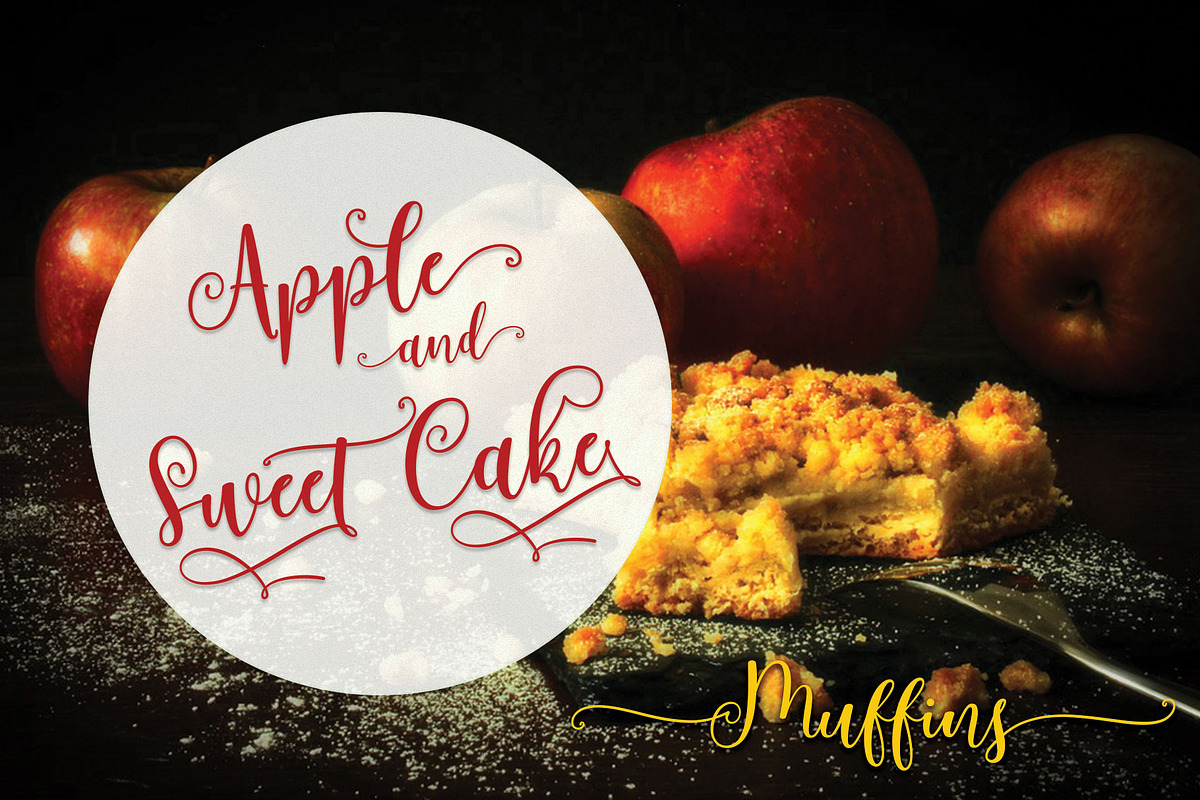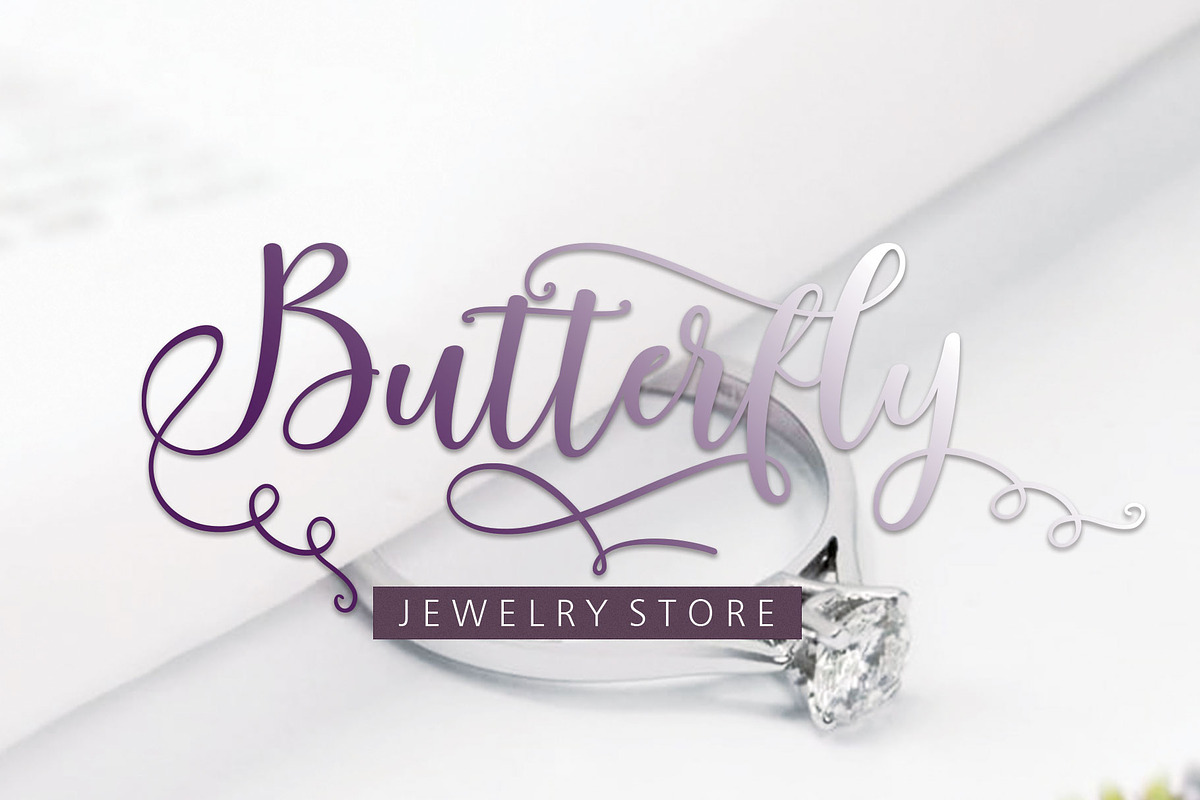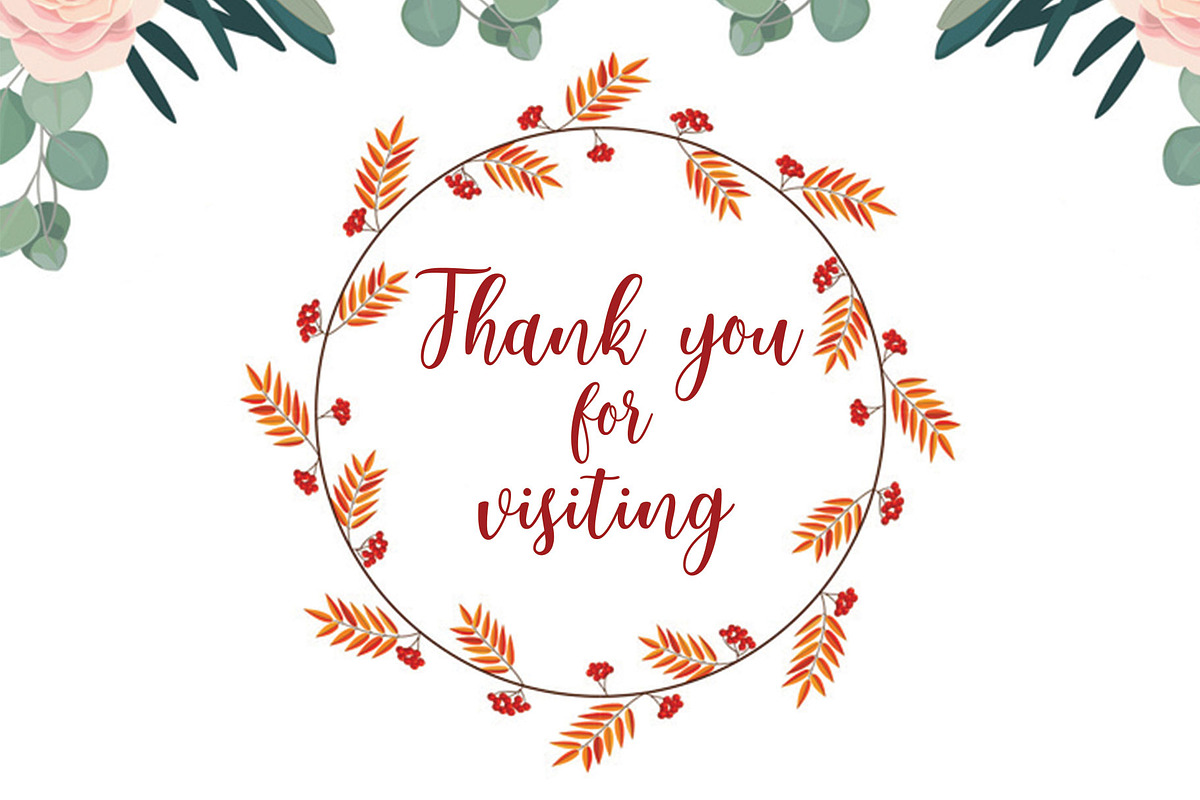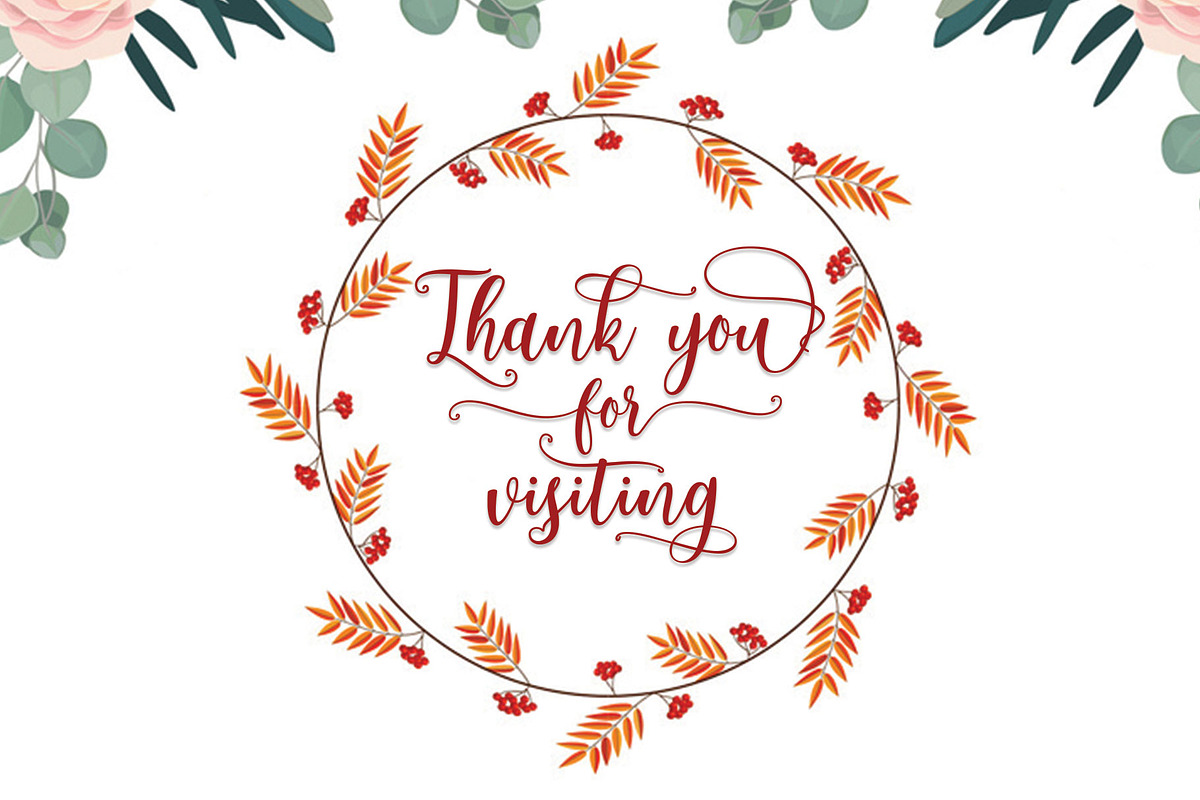
Body Silver Script
INTRODUCING
Body Silver - a new fresh & modern script with a handmade calligraphy style, decorative characters and a dancing baseline! So beautiful on invitation like greeting cards, branding materials, business cards, quotes, posters, and more!
Body Silver - includes lowercase and uppercase letters, numbers, punctuation marks, standard ligatures, swash, stylistic alternates, stylistic set and multiple language support.
Features Basic Latin A-Z and a-z Numbers Symbols